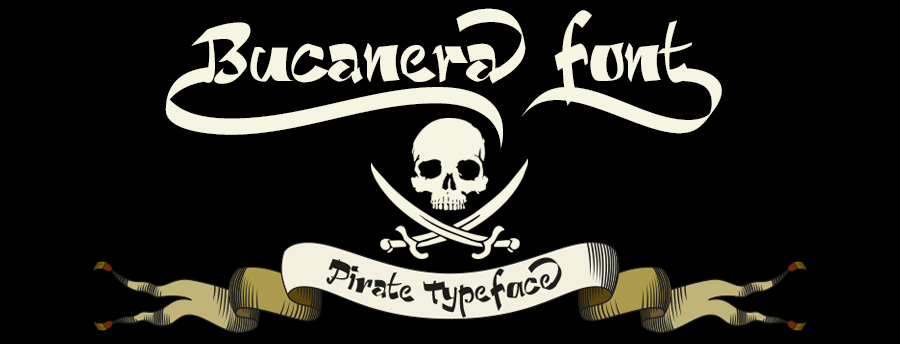
Bucanera Font
About the Bucanera Font
Bucanera is a modern calligraphy-style font with a beautiful pirate theme. The font contains a staggering 506 glyphs and is packed with OpenType features.
Creating the Bucanera Font
The Bucenara font is completely hand-drawn and is inspired by a pirate theme, think a mix of Pirates of the Caribbean and modern Somalian pirates.
During the curation of Bucanera the challenge was to keep the classical pirate letters and pull them into the modern age. Throw in the fact that the font has to be readable and suitable for print and digital and you might get an idea of how much time and effort went into creating this font and optimizing it until it was perfect.
Bucanera Script is packed with modern OpenType features such as:
– 12 Contextual Decorative ornaments. These can be used at the beginning and ends of words or phrases.– Alternate Characters– Swashes & Swooshes– Ligatures– Fractions, Currencies, Denominators, Numerators, Slash Zero, Inferiors, Superiors, Fractions, Ordinal Terminal Forms, Initial Forms, Capital Alternates– Contextual Alternates– Discretionary Ligatures